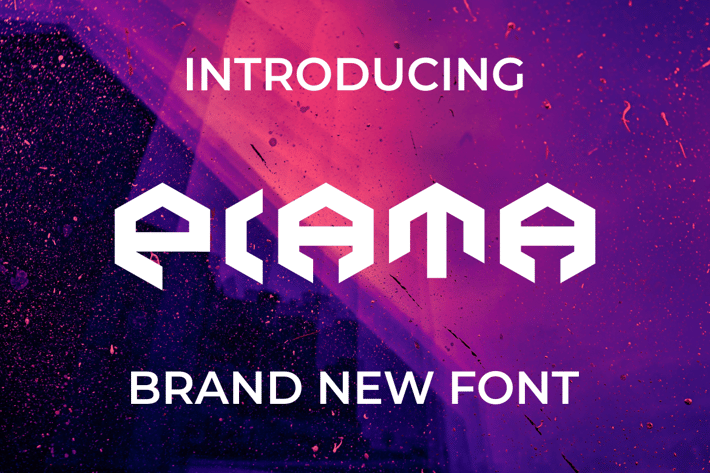
PIATA Font
Introducing our new product PIATA Font - Modern Font
PIATA Font - Modern Font is a bold and authentic display font. The font is suitable for any branding project like logo, t-shirt printing, esport, and many more. outstanding in a wide range of contexts.